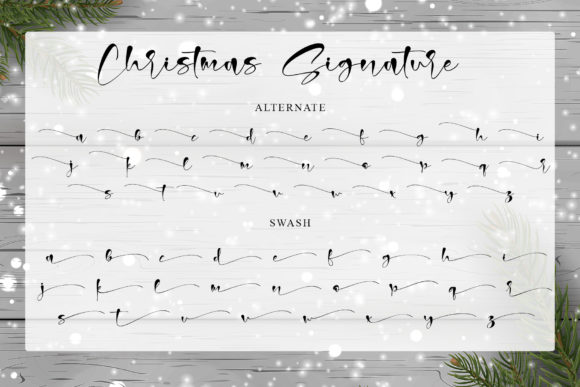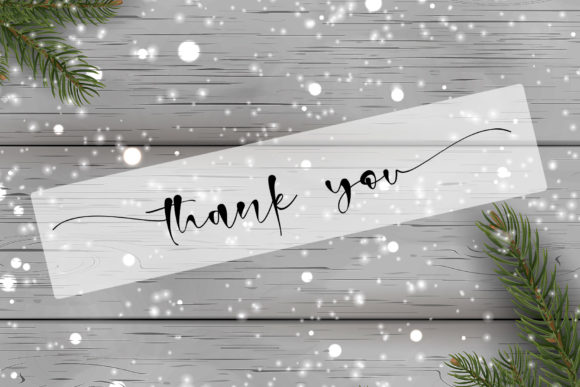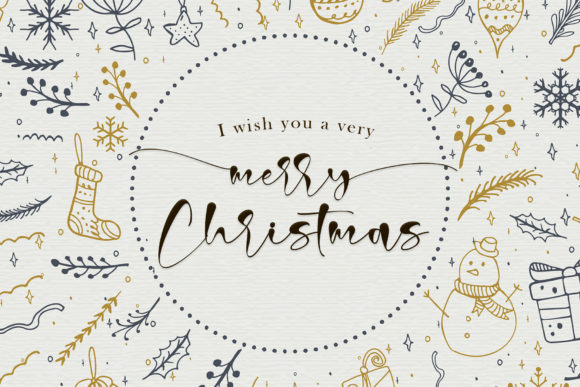
About Christmas Signature Font
Christmas Signature is a beautiful and elegant handwritten font that captures the essence of the holiday season. With its delicate and dainty swashes, this font adds a touch of sophistication and charm to your designs.
The flowing strokes and graceful curves of Christmas Signature give it a handcrafted and personalized feel. The sweet and delicate swashes enhance the overall elegance of the font, adding a whimsical touch to your text. This makes it perfect for creating letterheads, titles, stationery, and other crafty projects.
The versatility of Christmas Signature allows it to be used for a wide range of design ideas. Whether you’re creating holiday-themed invitations, elegant greeting cards, or stylish branding materials, this font will bring a touch of elegance and uniqueness to your projects.
The dainty swashes of Christmas Signature add an extra level of customization and creativity. They allow you to embellish and decorate your text, creating beautiful flourishes and accents. This flexibility makes it easy to personalize your designs and make them truly unique.
Christmas Signature is designed to be user-friendly, and its smooth and flowing letterforms ensure readability and legibility in various sizes and contexts. Whether you’re using it for digital designs or printed materials, the font will maintain its elegance and clarity.
In summary, Christmas Signature is an elegant and dainty handwritten font with sweet and delicate swashes. Its versatility makes it suitable for a wide range of crafty ideas, from letterheads and titles to stationery. With its charming and sophisticated look, this font will add a touch of elegance to your holiday designs and make them stand out.